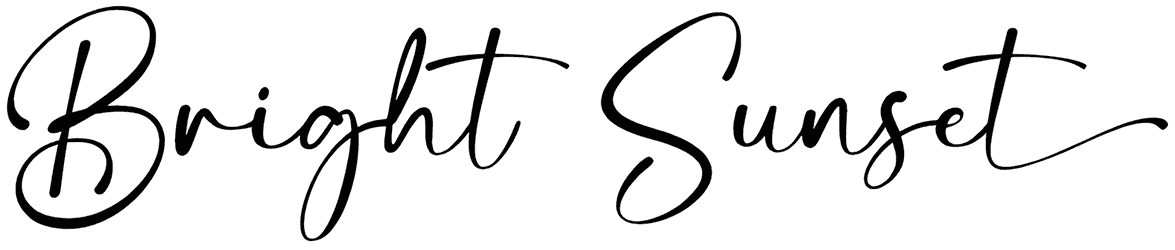
Bright Sunset Font
If you want your graphic content to look a little bit classy, then you should consider a lovely script font the such as Bright Sunset a very serious option. This cursive handwritten font comes with very accurate kerning and carries a sense of personalization, dreaminess, precision, or tenderness.
Aside from not supporting numbers, it can be perfectly matched with a wide set of creative ideas like flyers, brochures, business cards, branding, and product packaging.
Bright Sunset is a typeface that combines elegant with modern style. An easy-to-read typeface, with a touch of character, the font is highly adaptable to the modern style, to fit whatever your project needs.